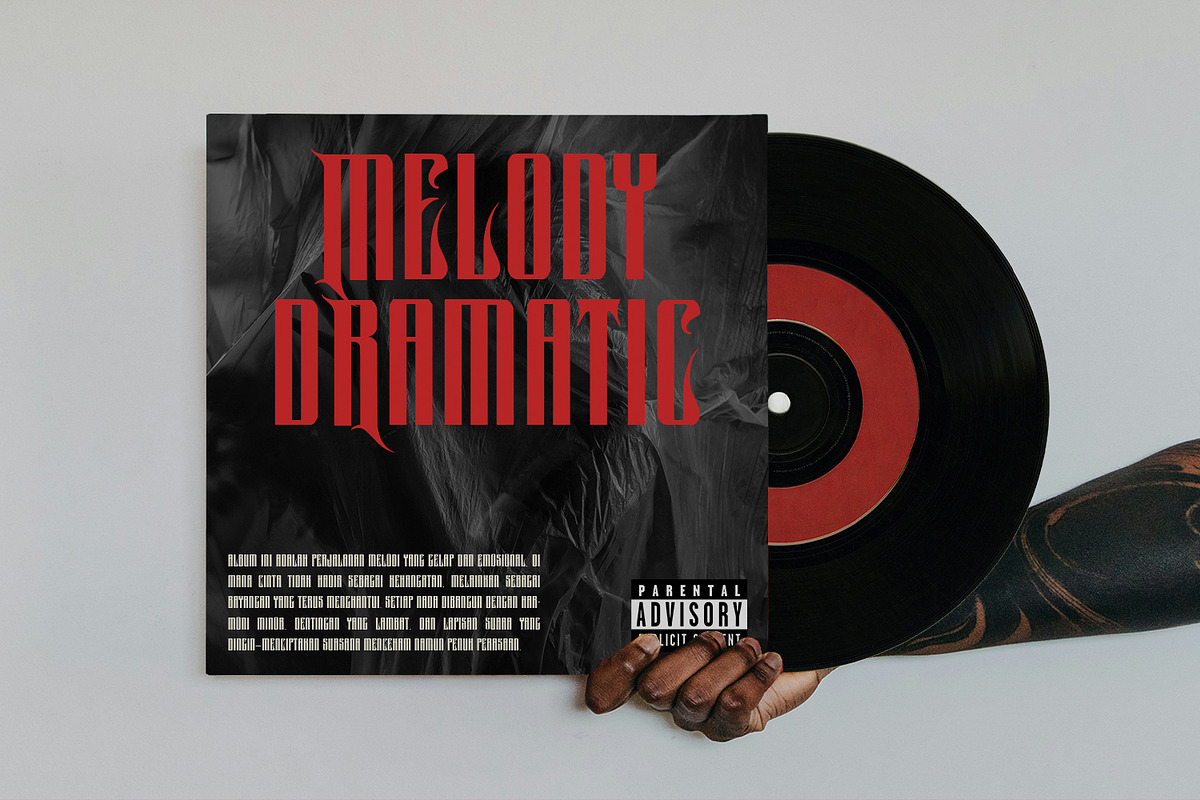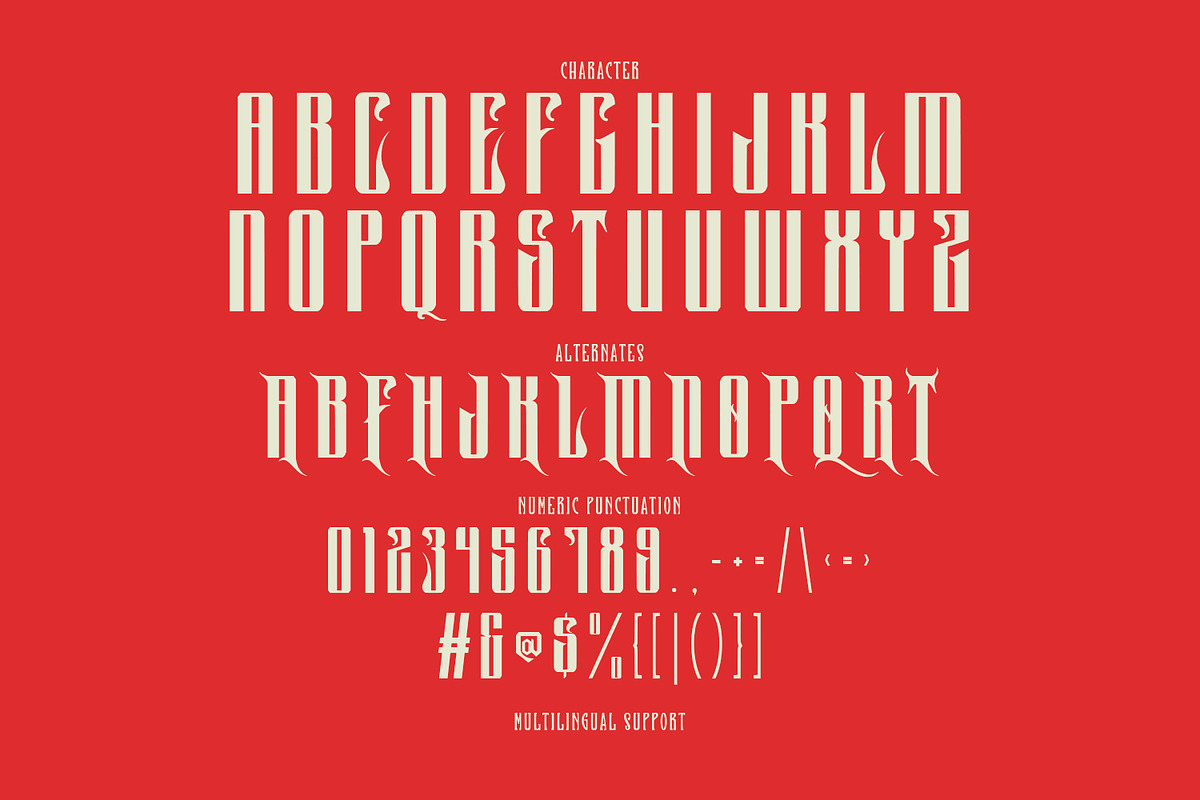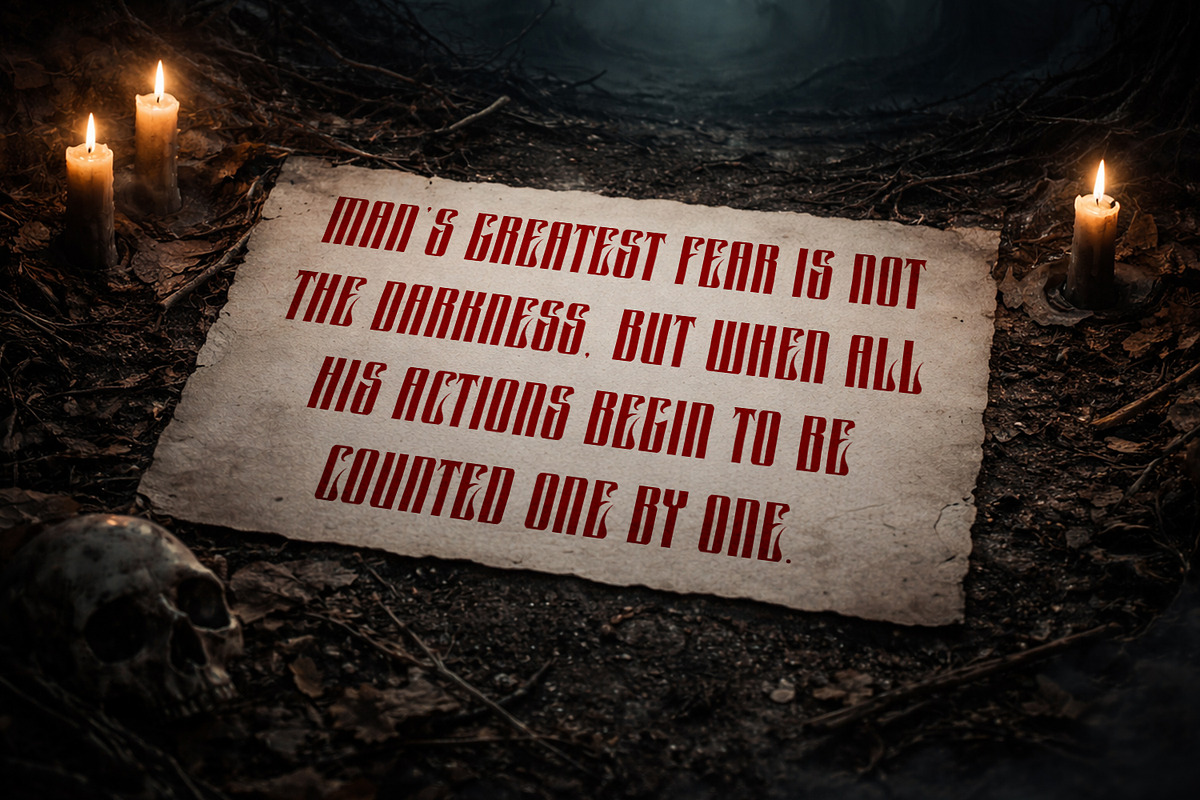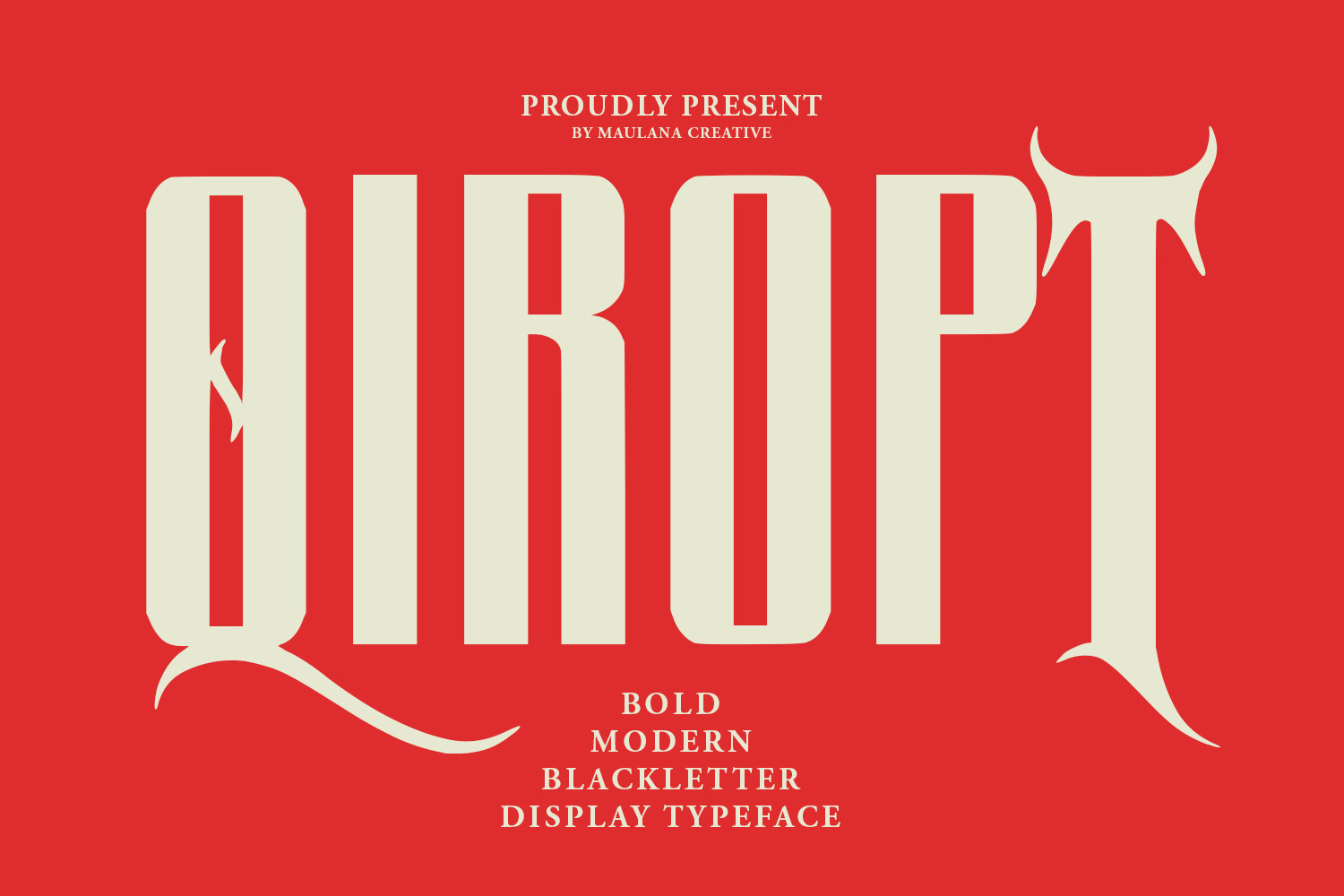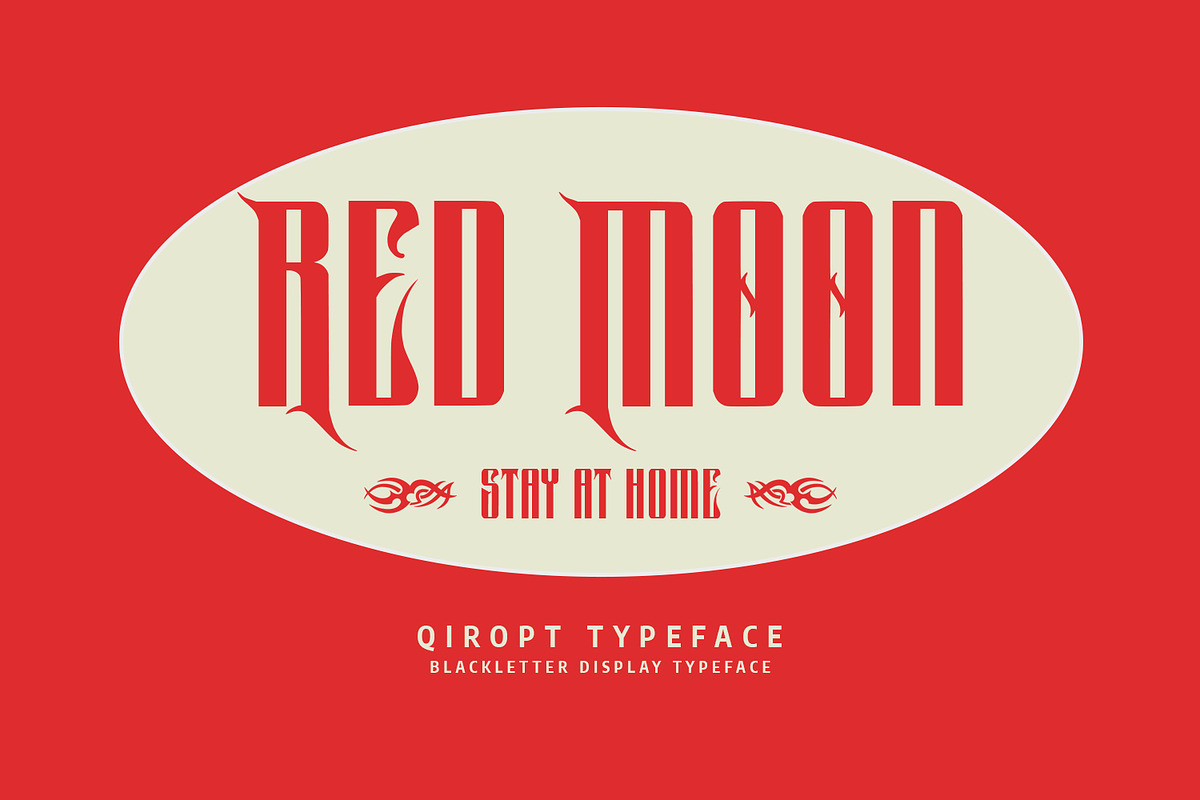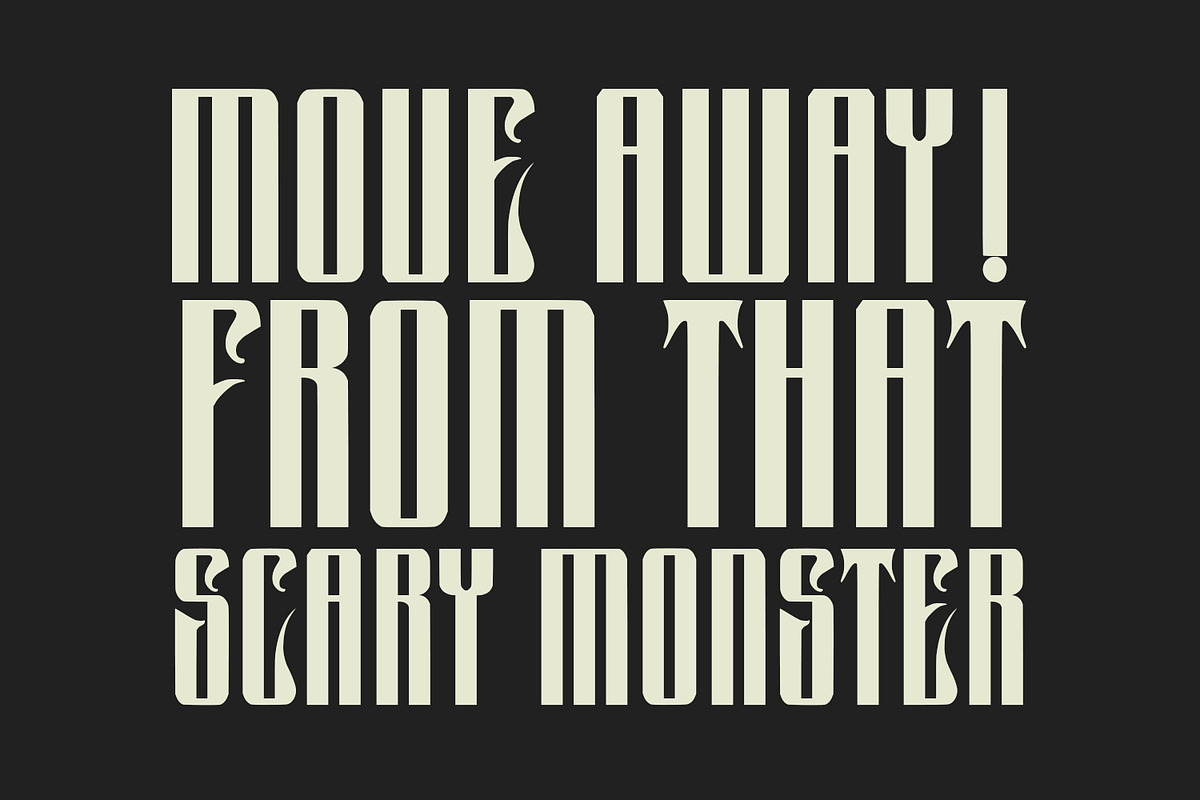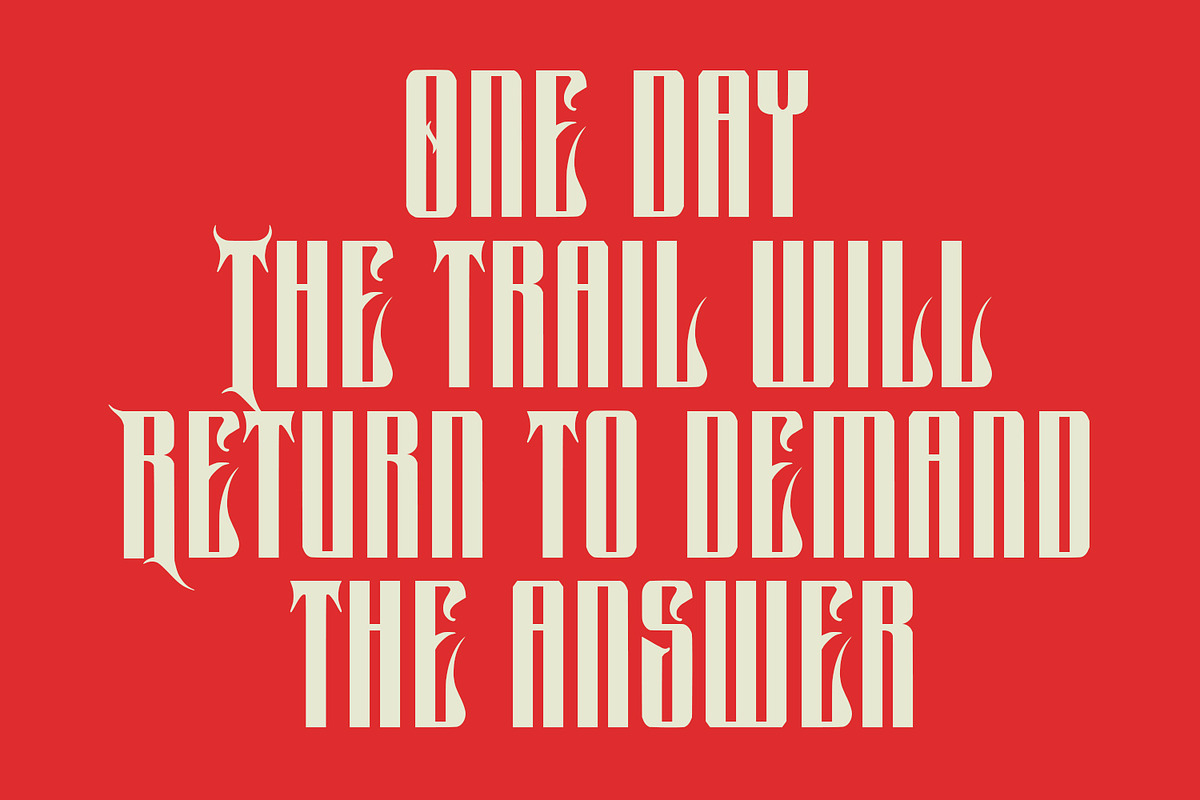
Qiropt Bold Modern Blackletter Font
Unleash a dark, sophisticated edge with Qiropt, a bold modern blackletter typeface designed for maximum visual impact. Fusing the historical aggression of traditional Fraktur with sleek, contemporary geometric lines, Qiropt offers a unique "sharp-meets-smooth" aesthetic.
This display font features tall, condensed letterforms and striking ornamental alternates that give your text a custom, hand-lettered feel. It is perfectly suited for heavy metal aesthetics, tattoo-inspired branding, edgy labels, horror movie, and dramatic album. Whether you're designing for a "Scary Monster" or a "Melody Dramatic," Qiropt provides the perfect balance of medieval soul and modern grit.
- Full Character Set: Includes a complete uppercase alphabet.
- Alternate: A dedicated set of alternate characters for creative customization.
- Full Numeric & Punctuation Support: Includes all standard symbols and numbers.
- Multilingual Support: Ready for global use with a wide range of accented characters and special symbols.